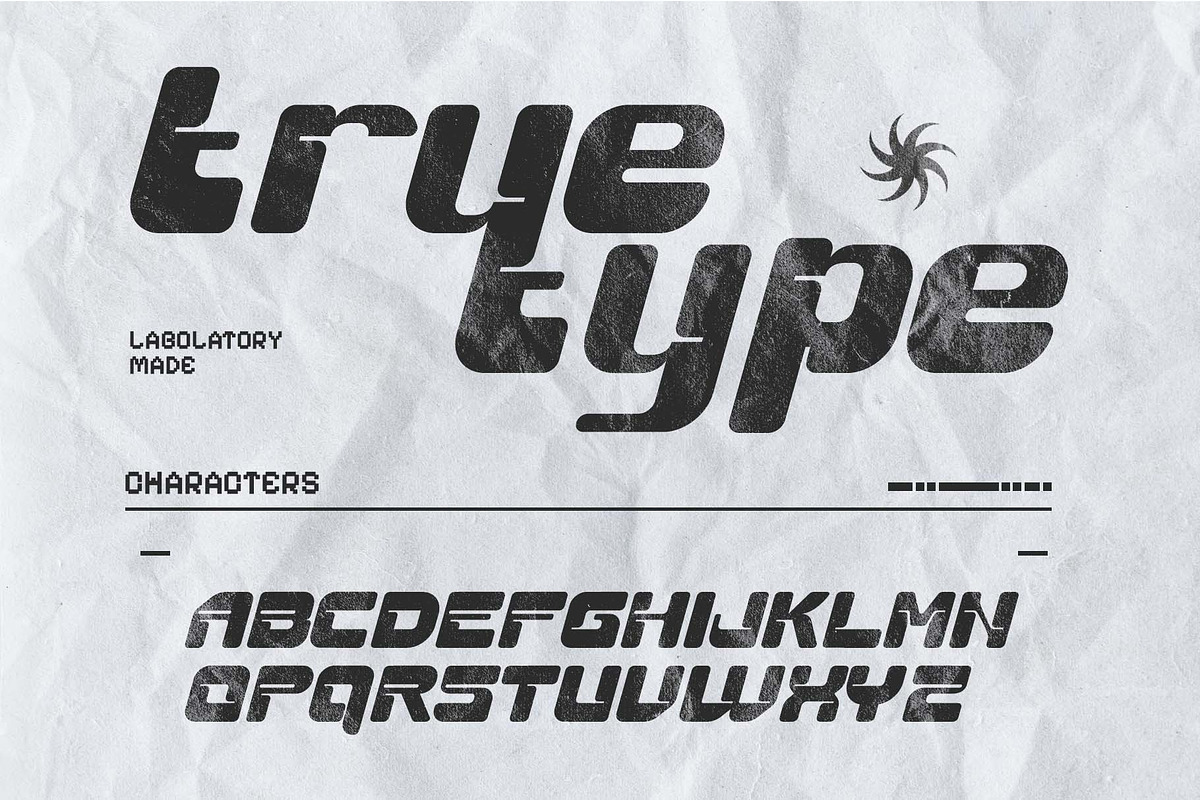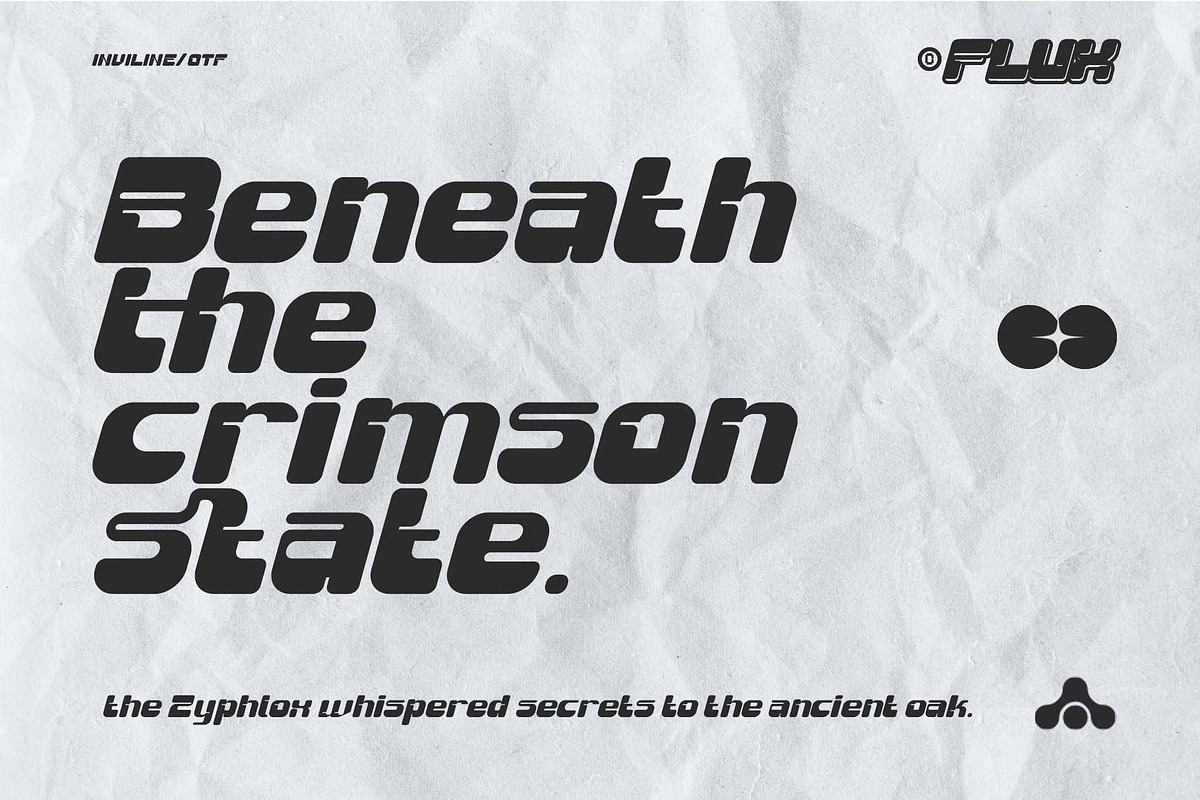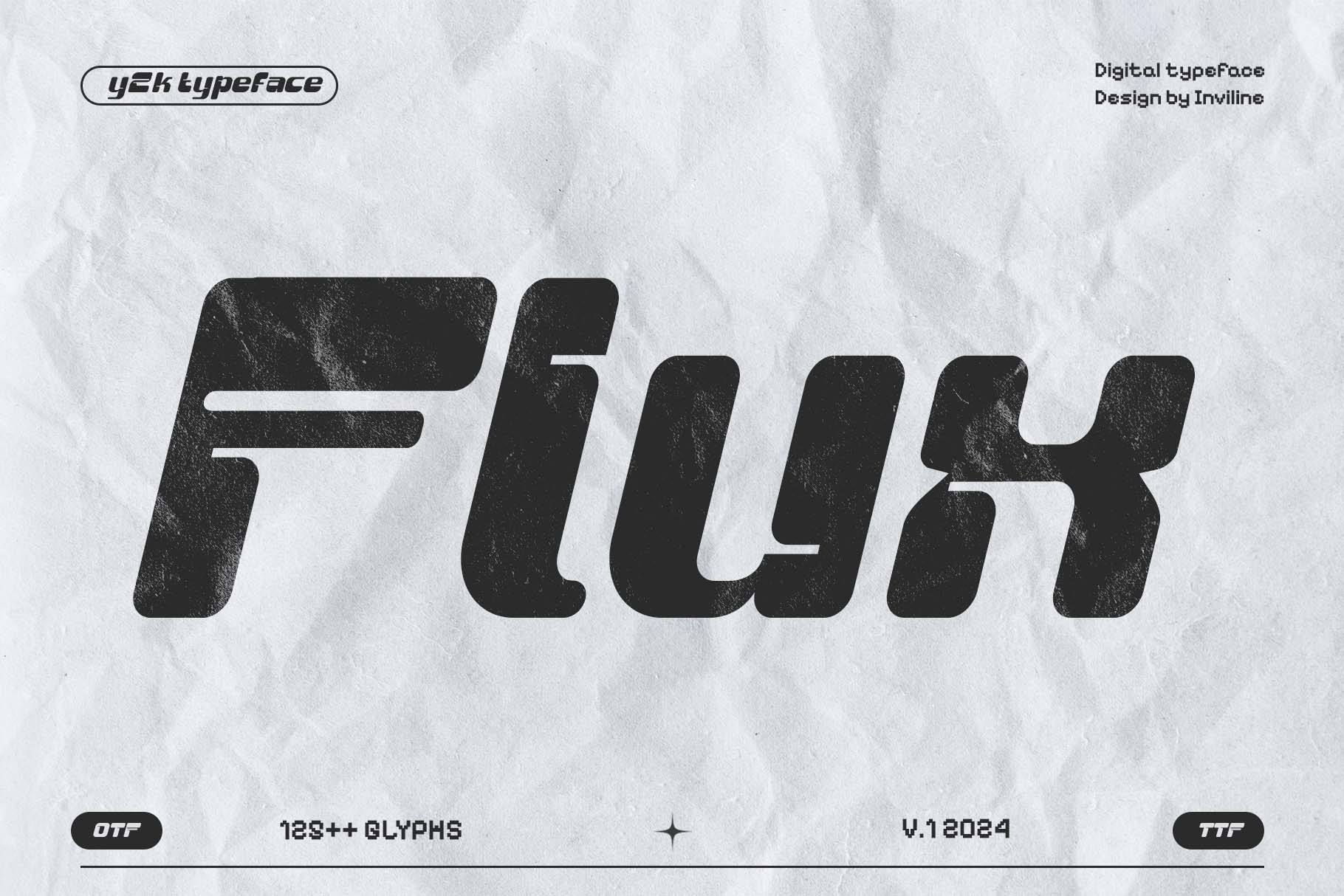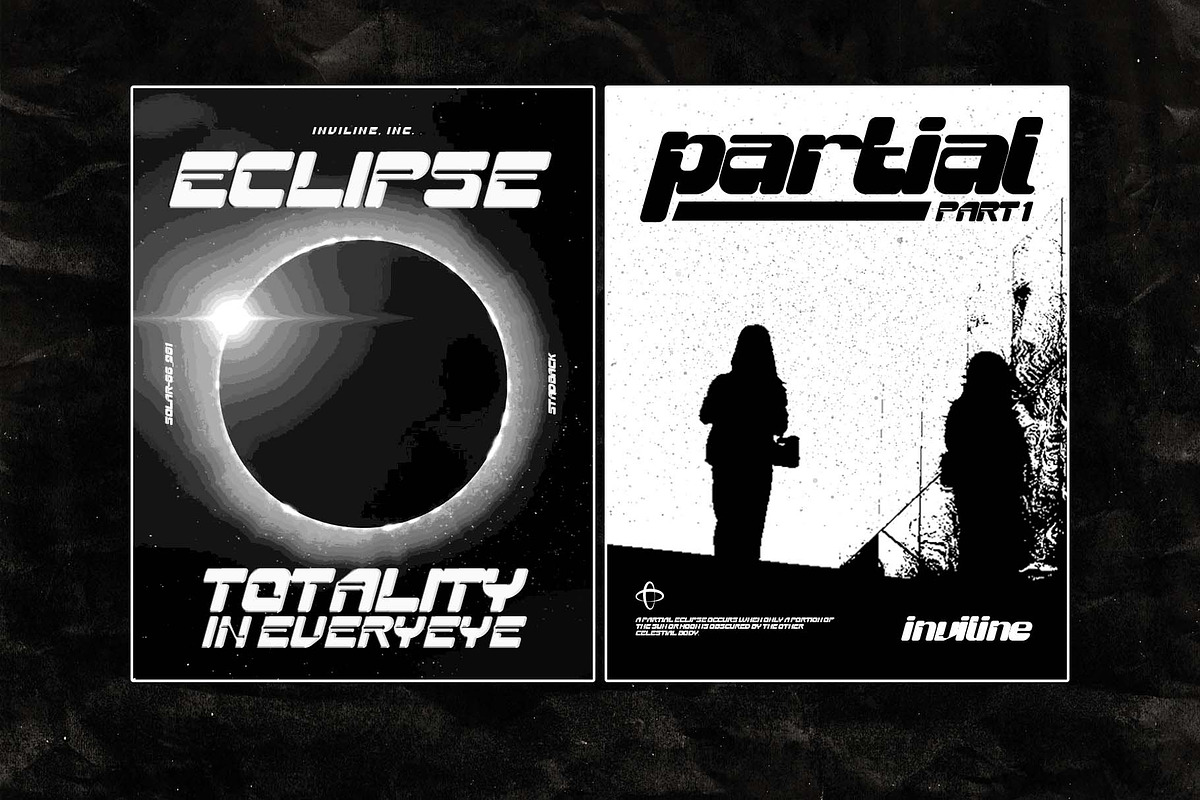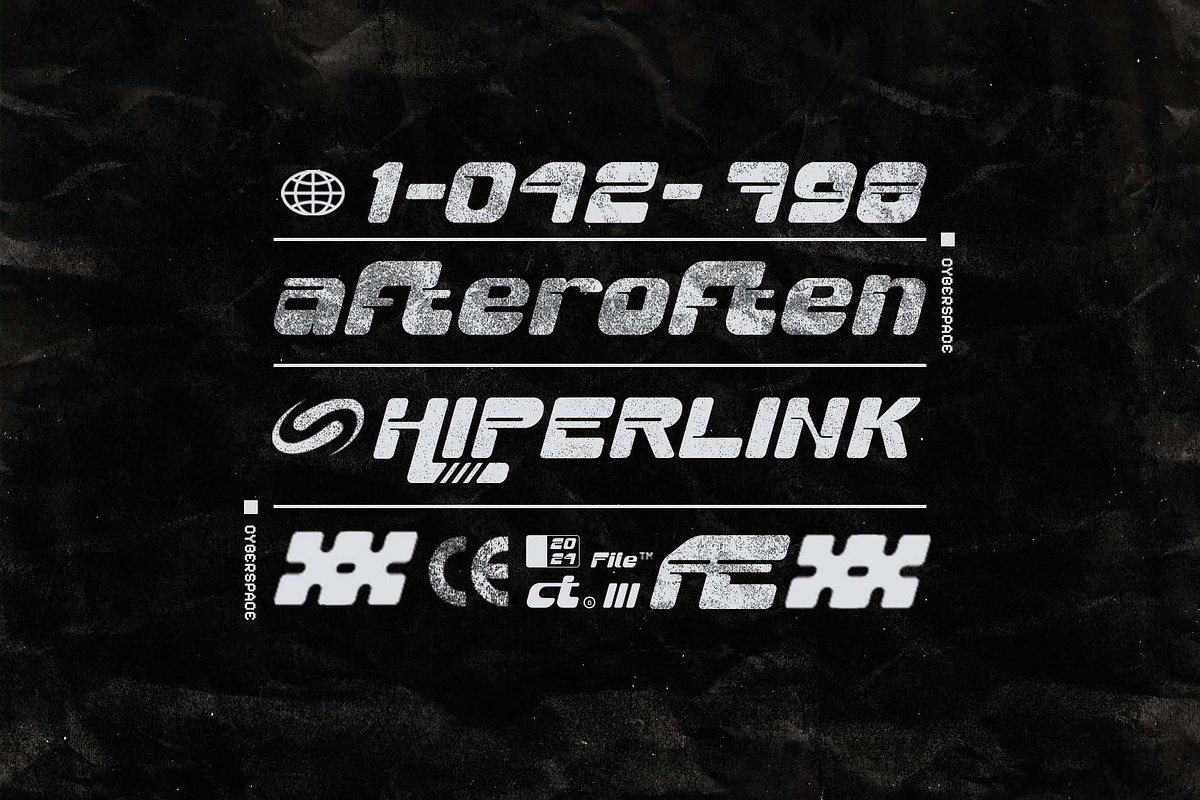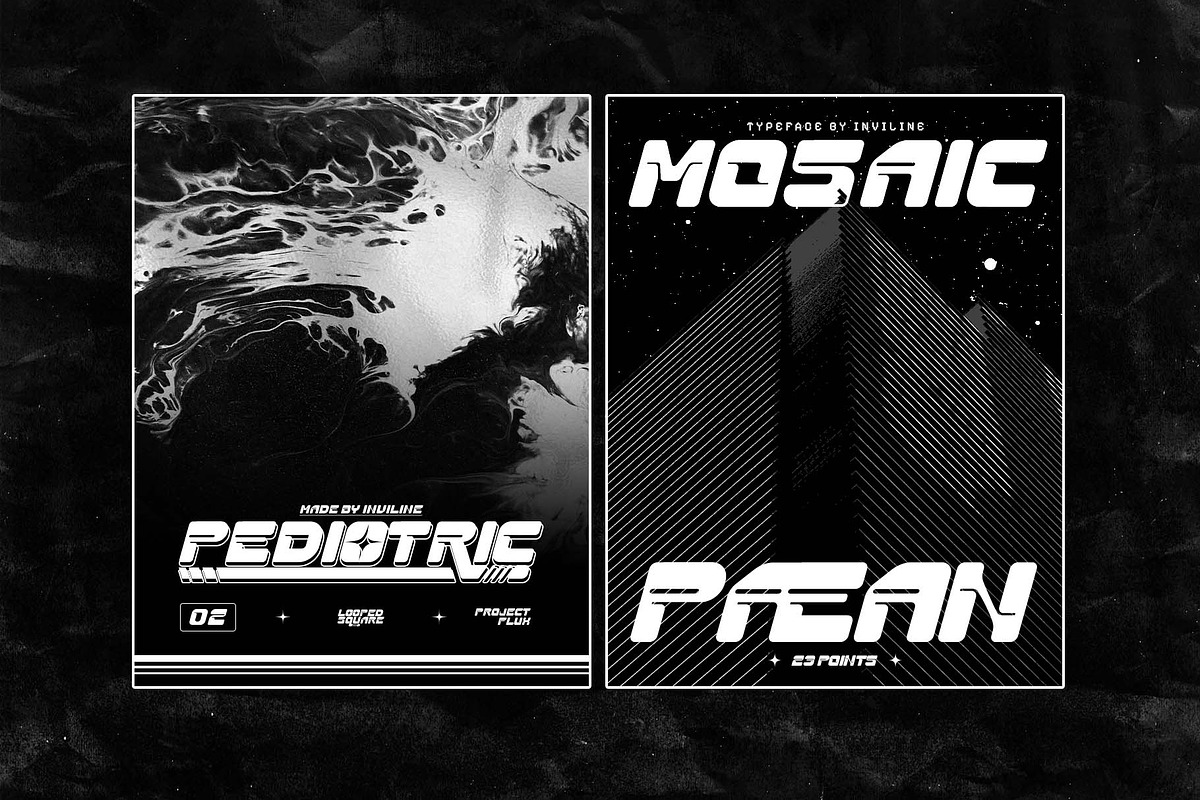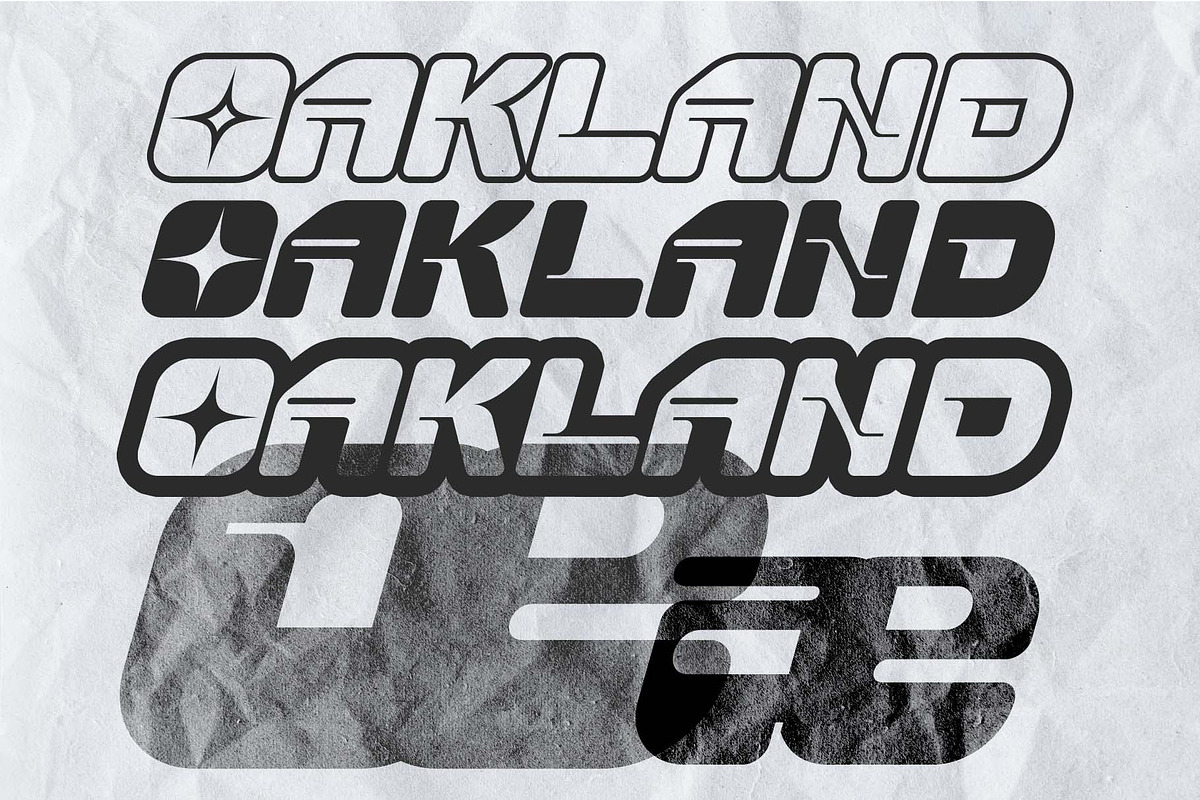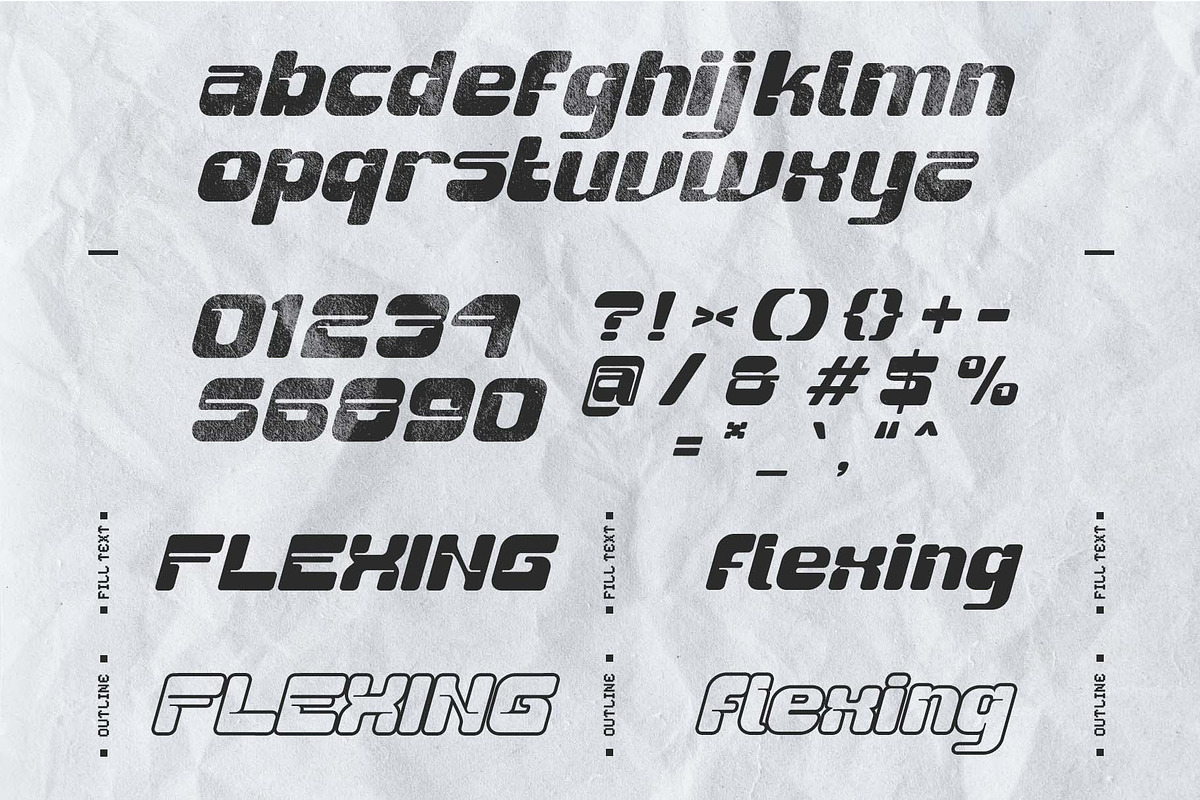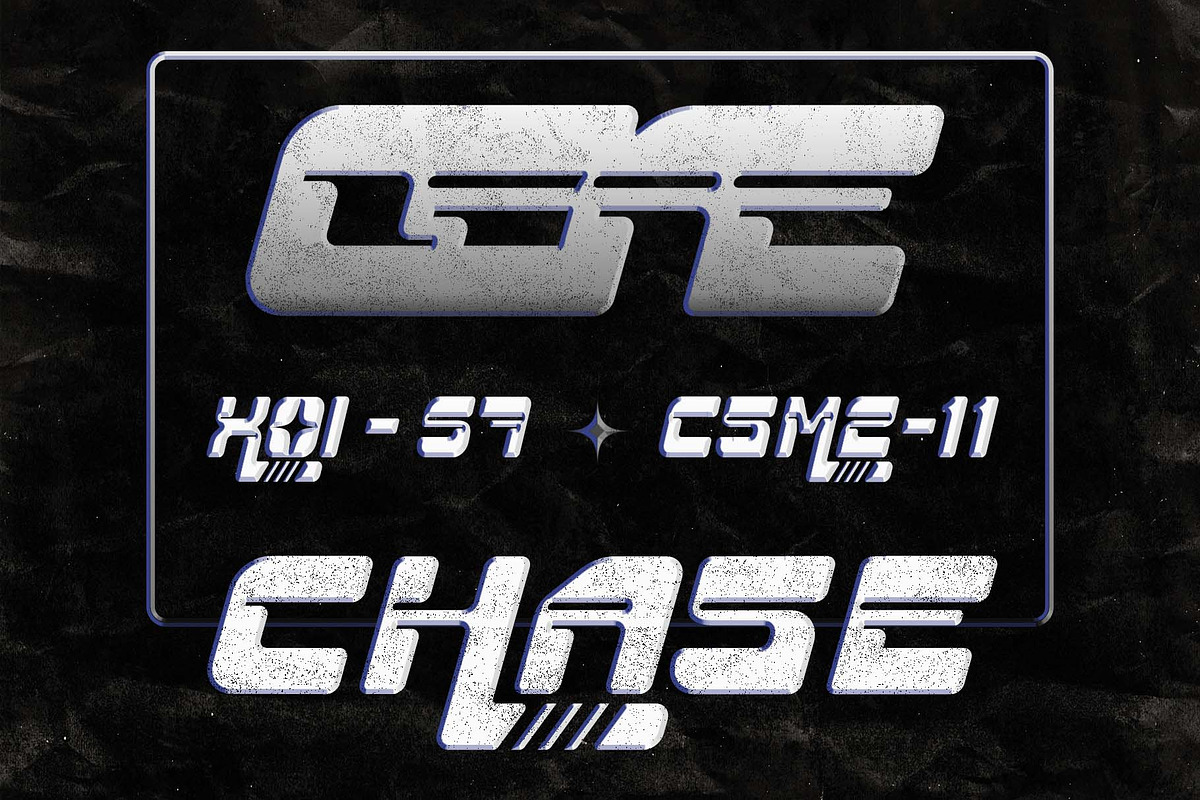
Flux Y2K Futuristic Display Typeface
Flux – Y2K Futuristic Display Typeface
Bring a touch of retro-futuristic to your designs with this meticulously crafted font collection. Perfect for adding a Y2K vibes to your branding, packaging, logos, and more.
- Uppercase & Lowercase Characters: Fully designed for a complete typographic experience
- Numerals & Punctuation: All the numbers and punctuation marks you need for any design task
- Multilingual Support: Includes characters for multiple languages, ensuring global usability
- High-Quality Design: Each font is crafted with attention to detail, ensuring a polished and professional look